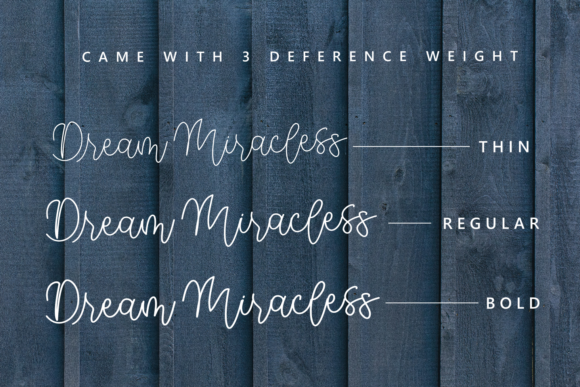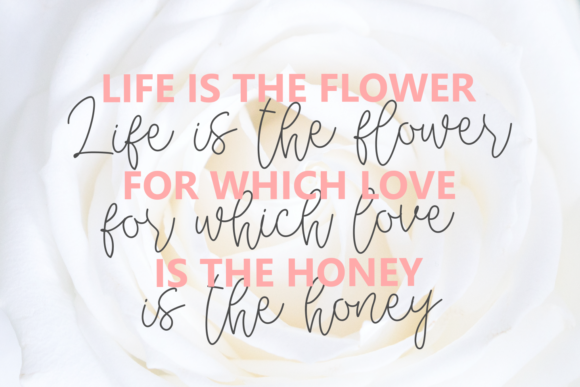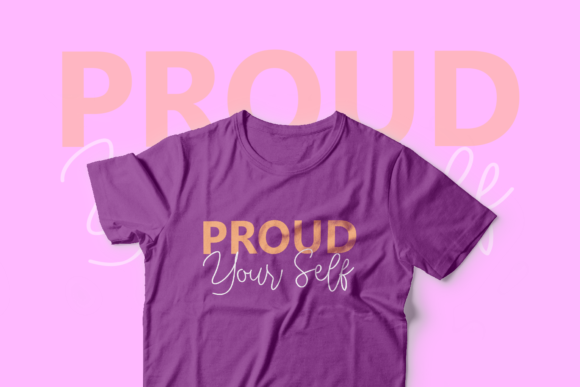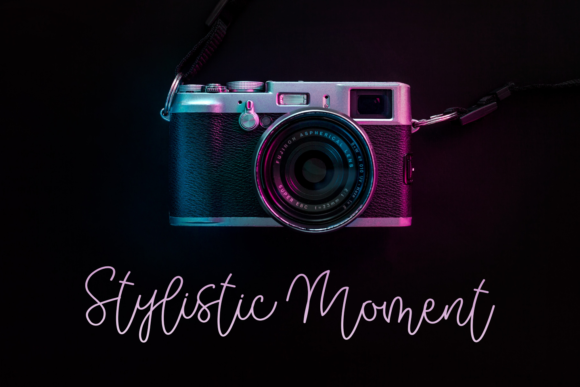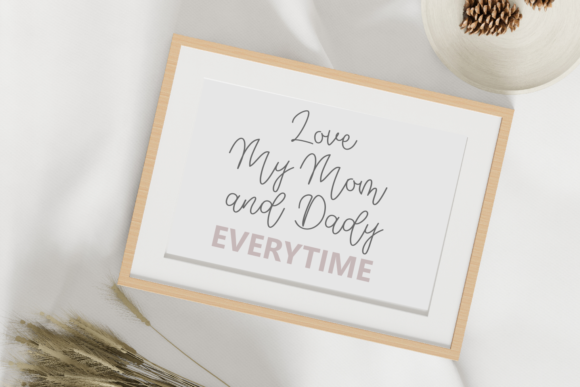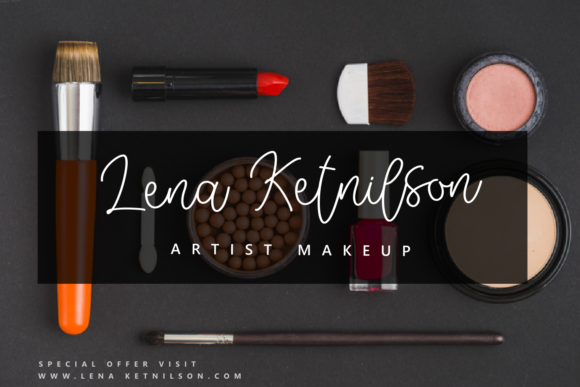
Dream Miracless Font: Elevate Your Designs with Elegance and Sophistication
Are you looking for a font that exudes luxury and sophistication? Look no further than the Dream Miracless Font. This lovely, thin, and delicate script font is perfect for designers and crafters who want to add a touch of elegance to their design projects. In this article, we’ll dive into the features and benefits of the Dream Miracless Font and explore how it can elevate your designs.
What is Dream Miracless Font?
Dream Miracless is a beautiful script font that features characters that dance along the baseline, creating a sense of movement and fluidity. The font’s thin and delicate lines give it a luxurious feel, making it perfect for designs that require a touch of sophistication. Whether you’re working on a branding project, a wedding invitation, or a packaging design, the Dream Miracless Font is sure to impress.
Key Features of Dream Miracless Font
- Lovely and delicate script font: The Dream Miracless Font features beautiful, cursive script letters that are perfect for adding a touch of elegance to your designs.
- Thin and delicate lines: The font’s thin lines give it a luxurious feel, making it perfect for designs that require a touch of sophistication.
- Characters that dance along the baseline: The font’s unique design feature creates a sense of movement and fluidity, adding visual interest to your designs.
- Luxury spark: The Dream Miracless Font is perfect for designs that require a touch of luxury and sophistication.
Benefits of Using Dream Miracless Font
So, why should you choose the Dream Miracless Font for your design projects? Here are just a few benefits of using this beautiful font:
- Adds elegance and sophistication: The Dream Miracless Font is perfect for designs that require a touch of luxury and sophistication.
- Versatile: The font is suitable for a wide range of design projects, from branding and advertising to wedding invitations and packaging design.
- Easy to read: Despite its delicate lines, the Dream Miracless Font is easy to read, making it perfect for body text and headlines.
- Unique and eye-catching: The font’s unique design feature sets it apart from other script fonts, making it perfect for designers who want to create something truly unique.
How to Use Dream Miracless Font in Your Designs
So, how can you use the Dream Miracless Font in your designs? Here are a few ideas to get you started:
- Branding and advertising: Use the Dream Miracless Font to create elegant and sophisticated branding materials, such as logos, business cards, and brochures.
- Wedding invitations: The font’s luxurious feel makes it perfect for wedding invitations, save-the-date cards, and other wedding-related materials.
- Packaging design: Use the Dream Miracless Font to add a touch of elegance to your packaging design, whether you’re working on a luxury product or a food label.
- Stationery and paper goods: The font is perfect for creating elegant stationery, such as letterheads, notebooks, and journals.
| Font Name | Dream Miracless Font |
| Author | zeenesia |
In conclusion, the Dream Miracless Font is a beautiful and elegant script font that is perfect for designers and crafters who want to add a touch of luxury and sophistication to their design projects. With its thin and delicate lines, unique design feature, and versatility, this font is sure to elevate your designs and set you apart from the competition. So why wait? Download the Dream Miracless Font today and start creating stunning designs that exude elegance and sophistication.